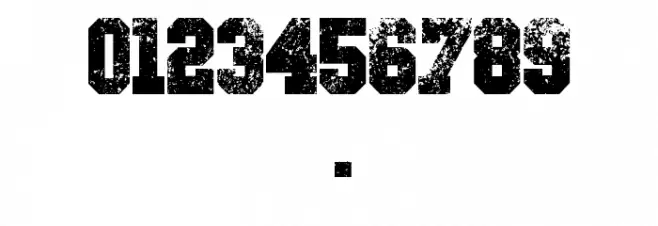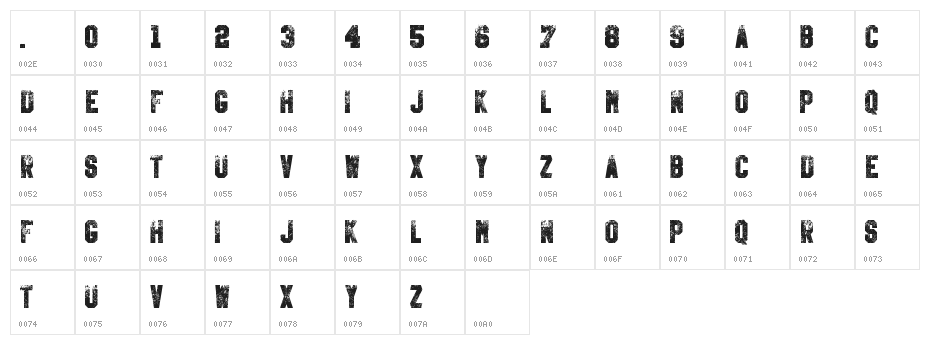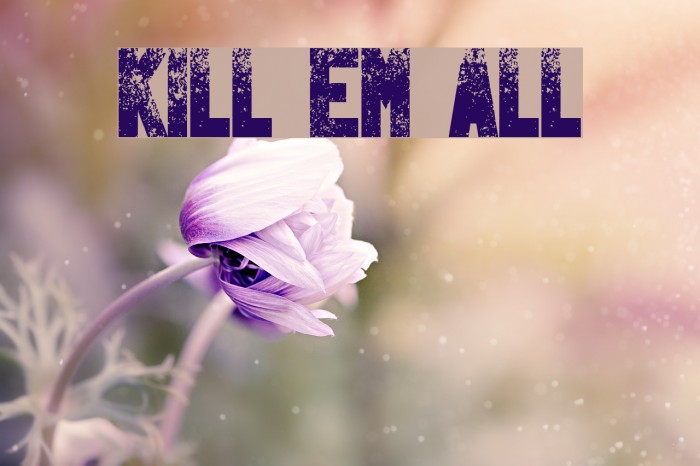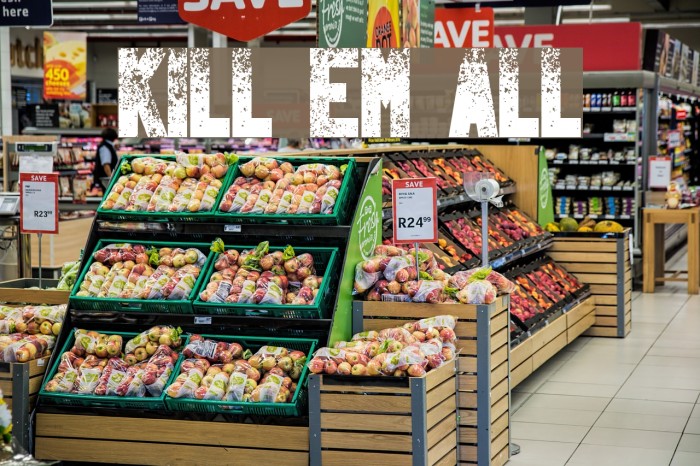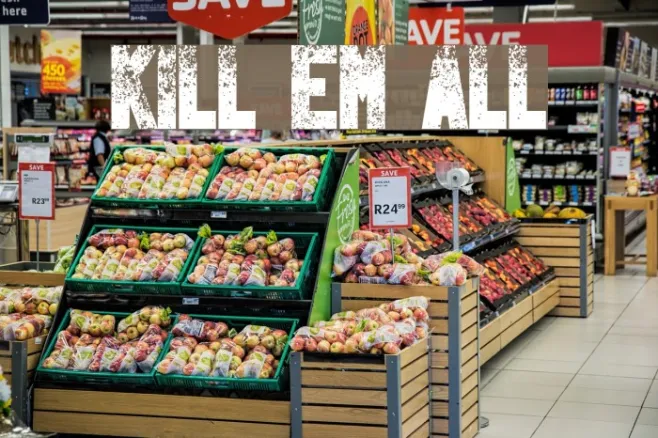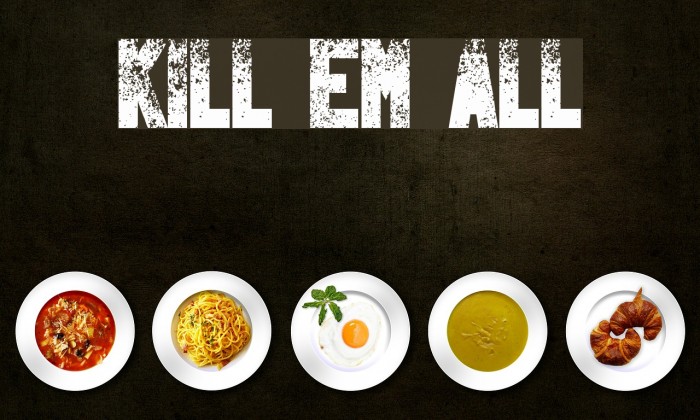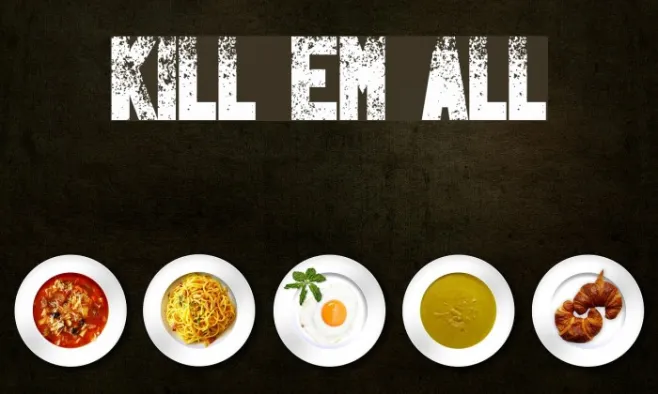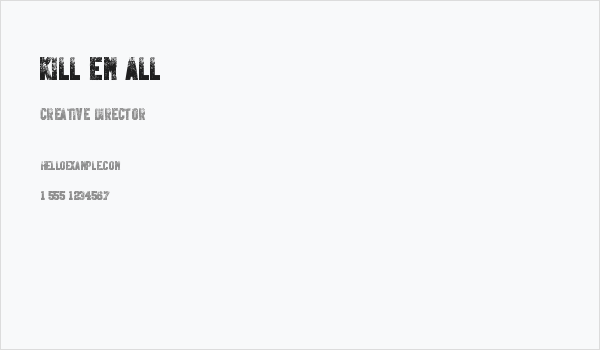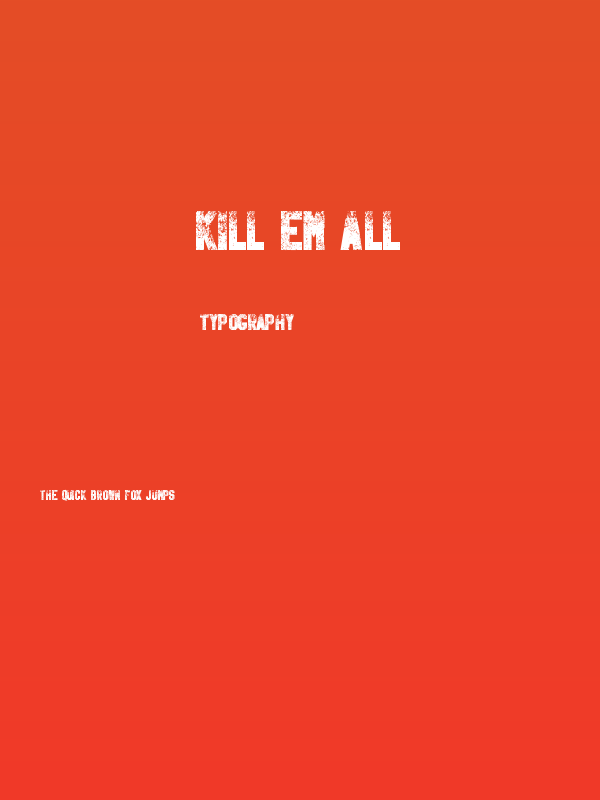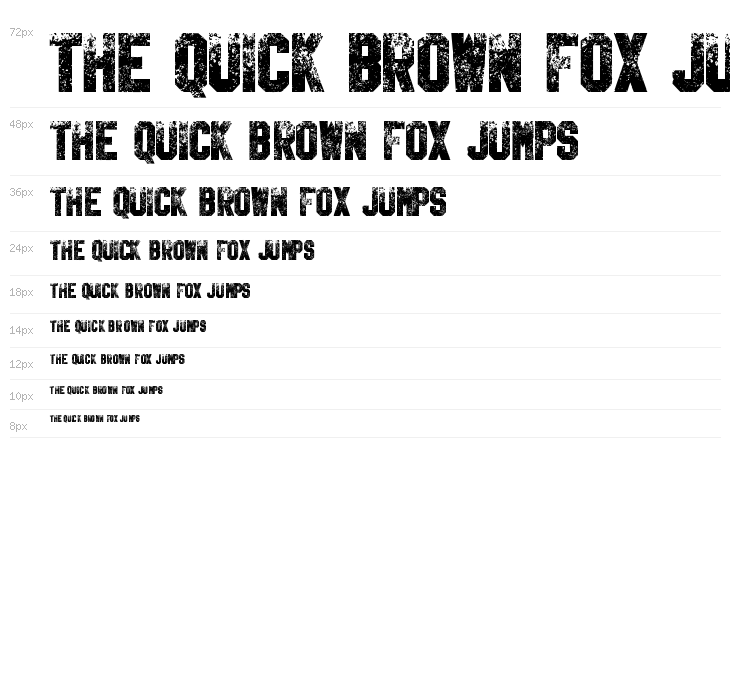
Kill Em All Font
Kill Em All Description
This font features a bold, distressed style with a gritty texture that gives it a rugged and worn appearance. The uppercase letters are prominently displayed with a heavy weight, making them ideal for impactful designs. The characters are uniformly wide, contributing to a strong, stable look. The distressed effect is consistent across all characters, adding a sense of age and toughness. This font is perfect for projects that require a bold statement or an edgy, rebellious vibe. Its unique texture makes it stand out, capturing attention with its raw and unpolished aesthetic.
| Proposed Projects | Ideal for album covers, posters, branding for extreme sports, or any design needing a bold, edgy look. |